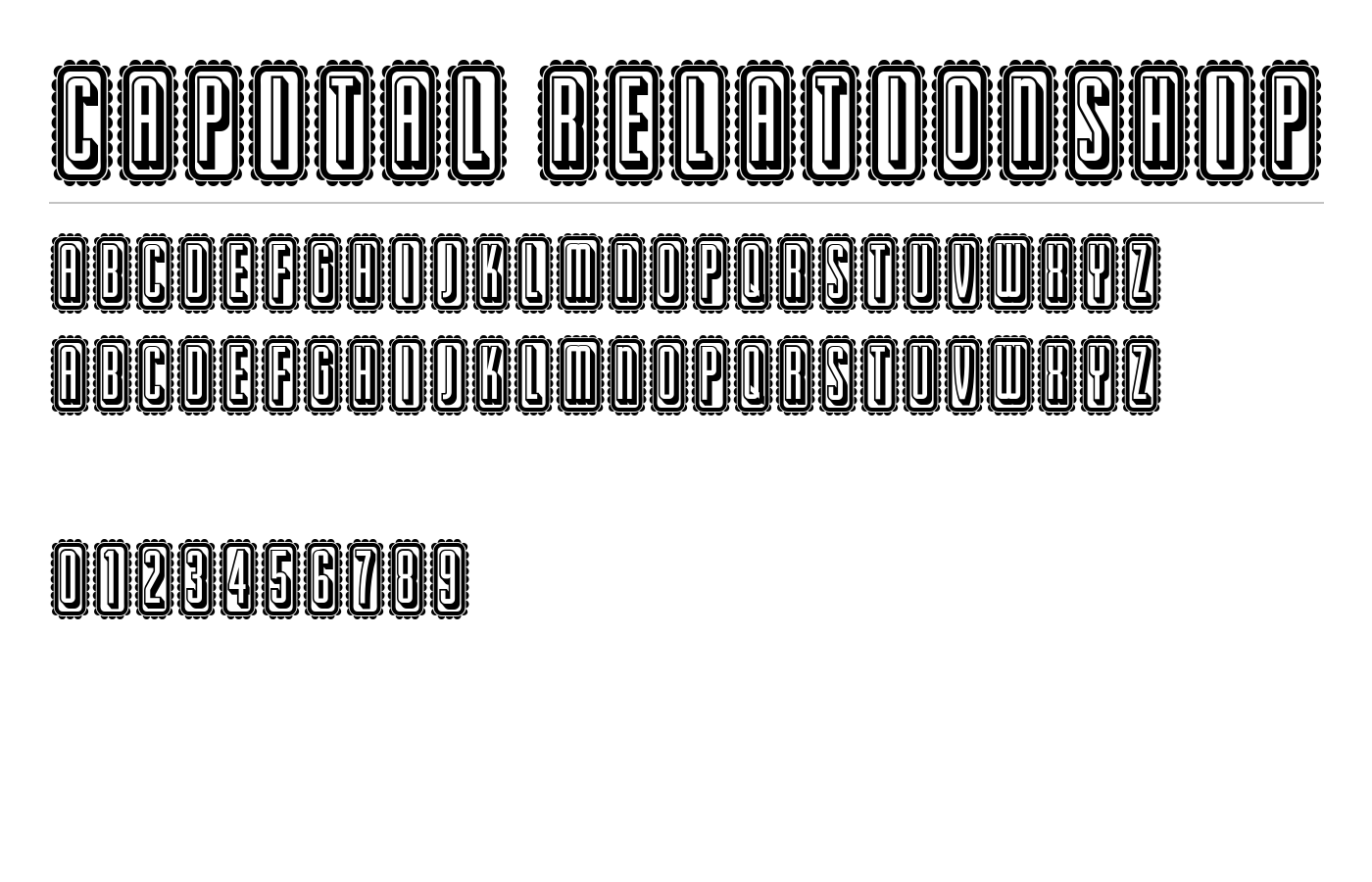
Capital Relationship is a bold, decorative sans serif font characterized by its tall, condensed uppercase letters enclosed within layered rectangular frames with scalloped edges. Its high contrast between the strong vertical strokes and the intricate ornamental borders gives it a vintage carnival or marquee sign feel, making it ideal for eye-catching headlines, posters, and branding that require a playful yet structured style. This font works best where a unique, standout display type is needed to evoke nostalgia and charm without sacrificing legibility.
Capital Relationship Font
About Capital Relationship Font